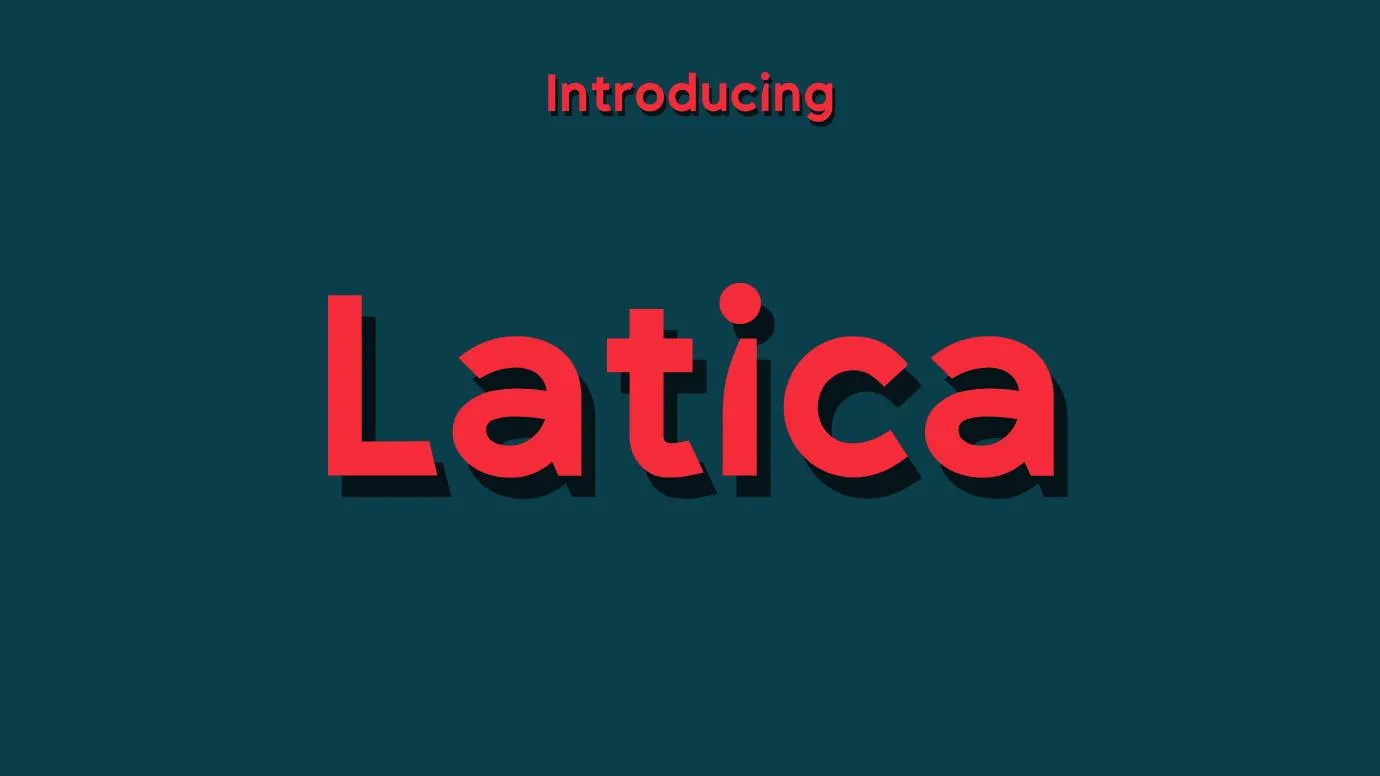
Latica Font Family is a clean and geometric sans-serif texture. Adam Ryszewski is a famous typographic designer who designed this typography and released it through Vertigo Foundry.
Latica Font